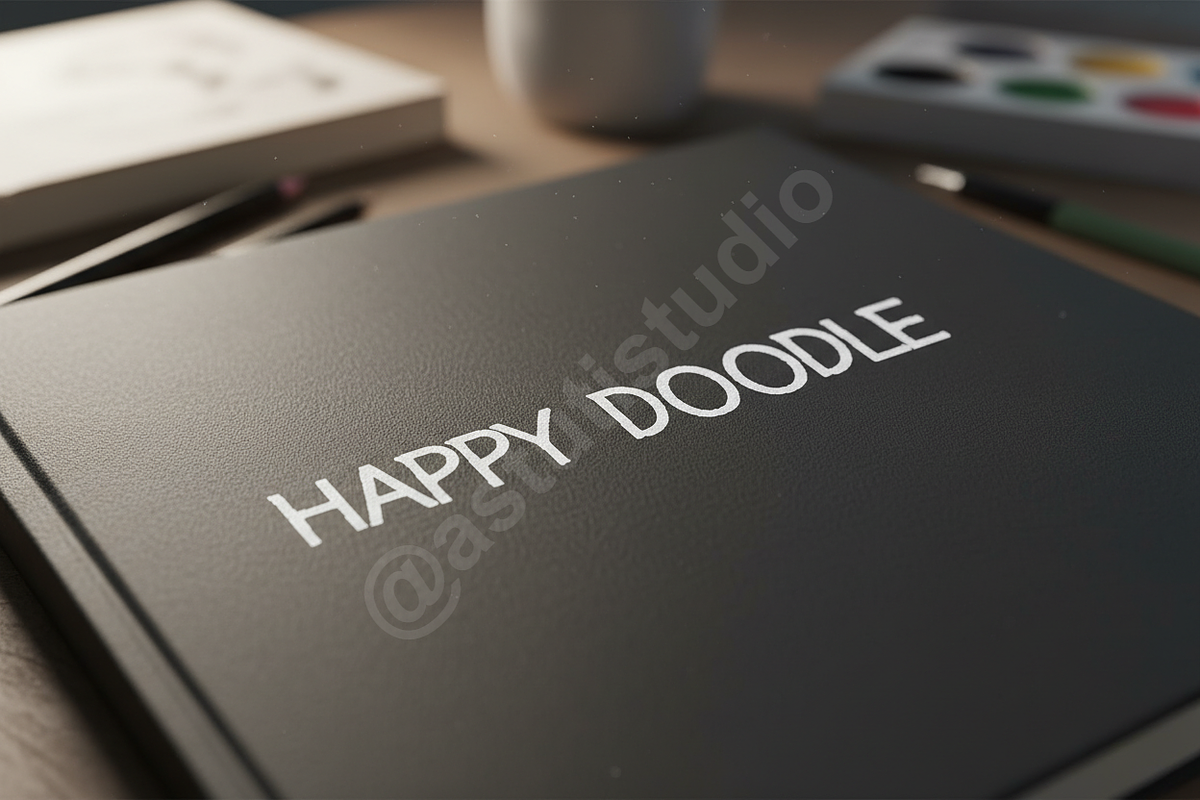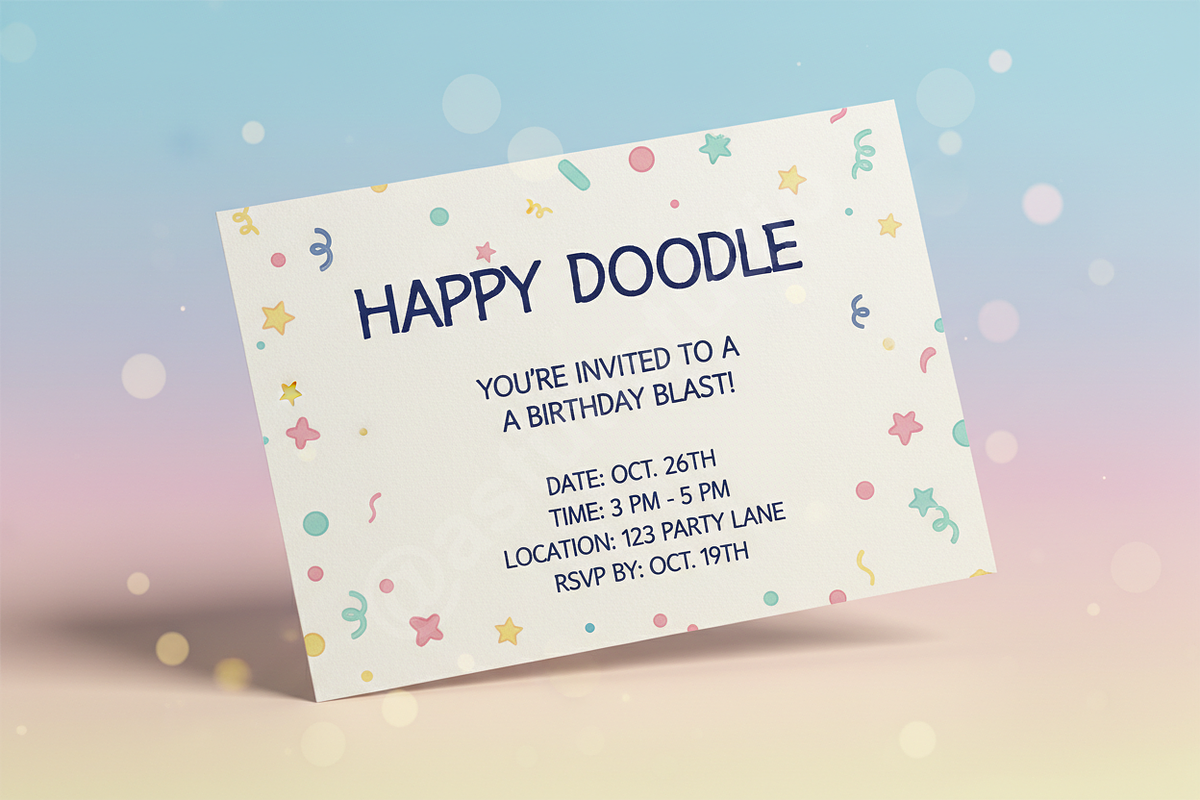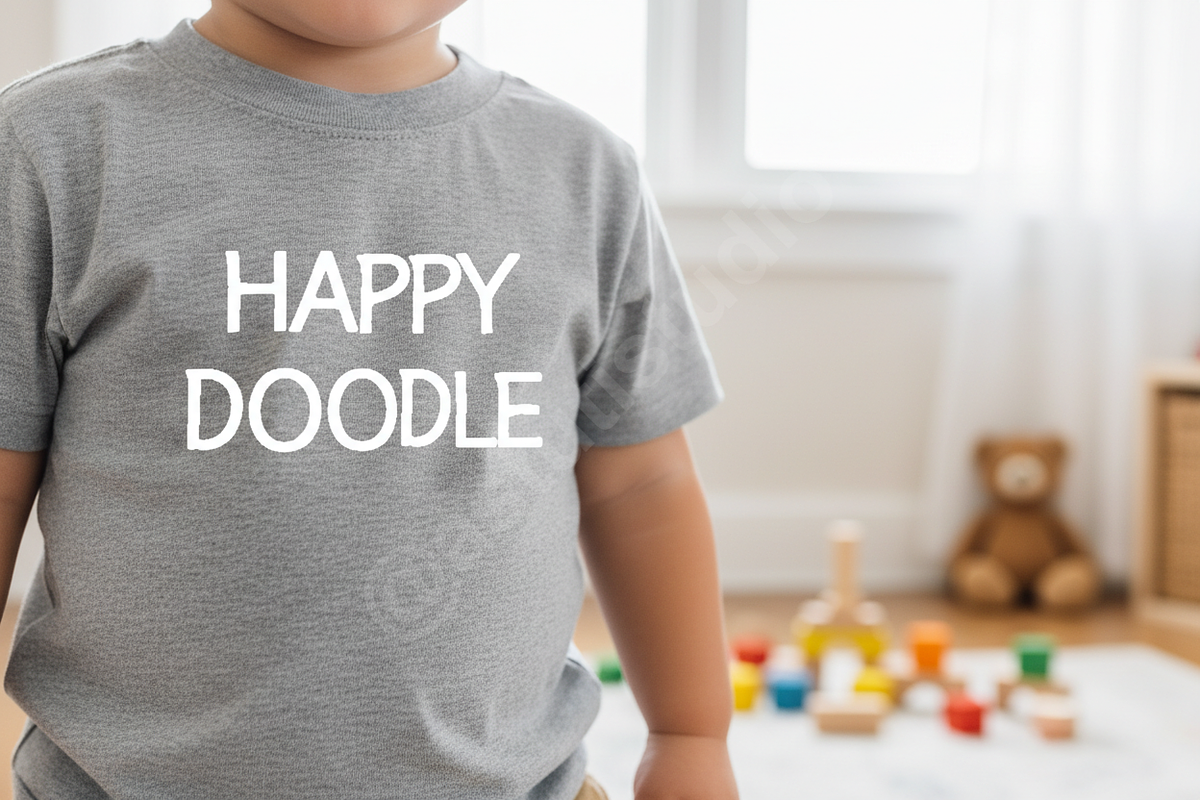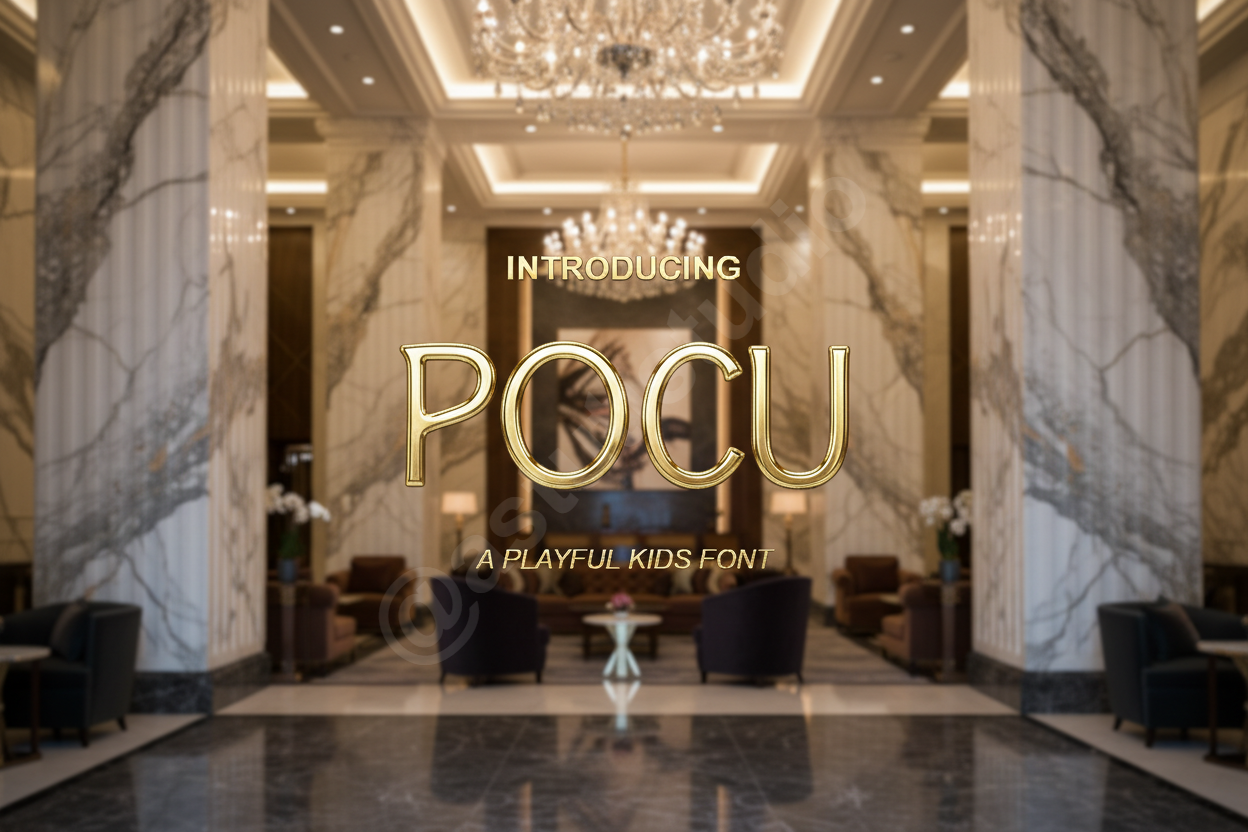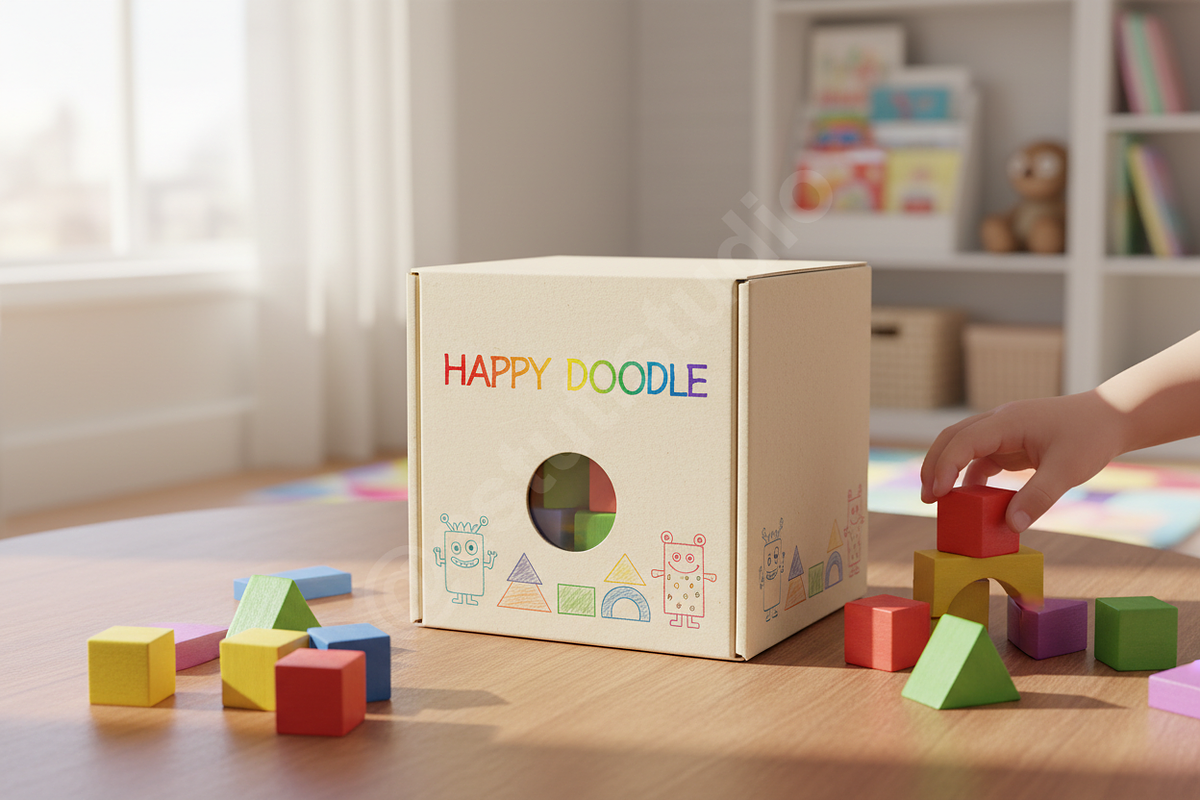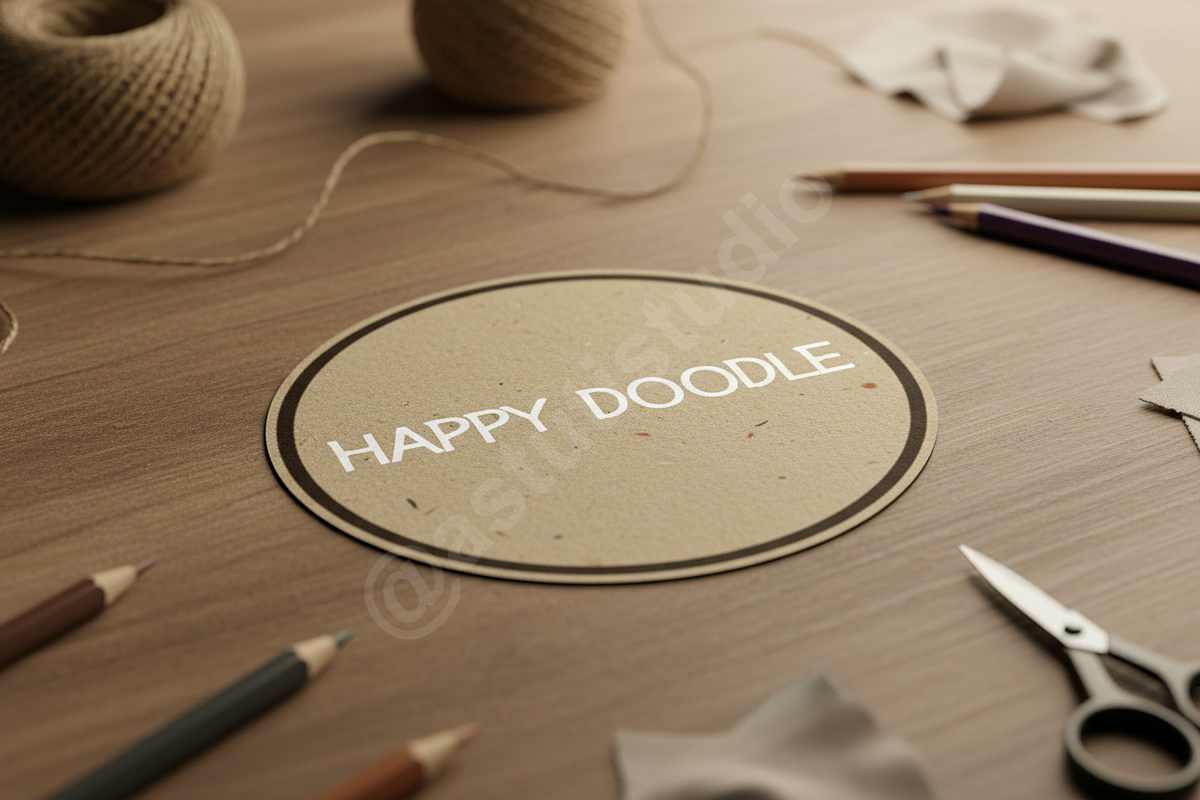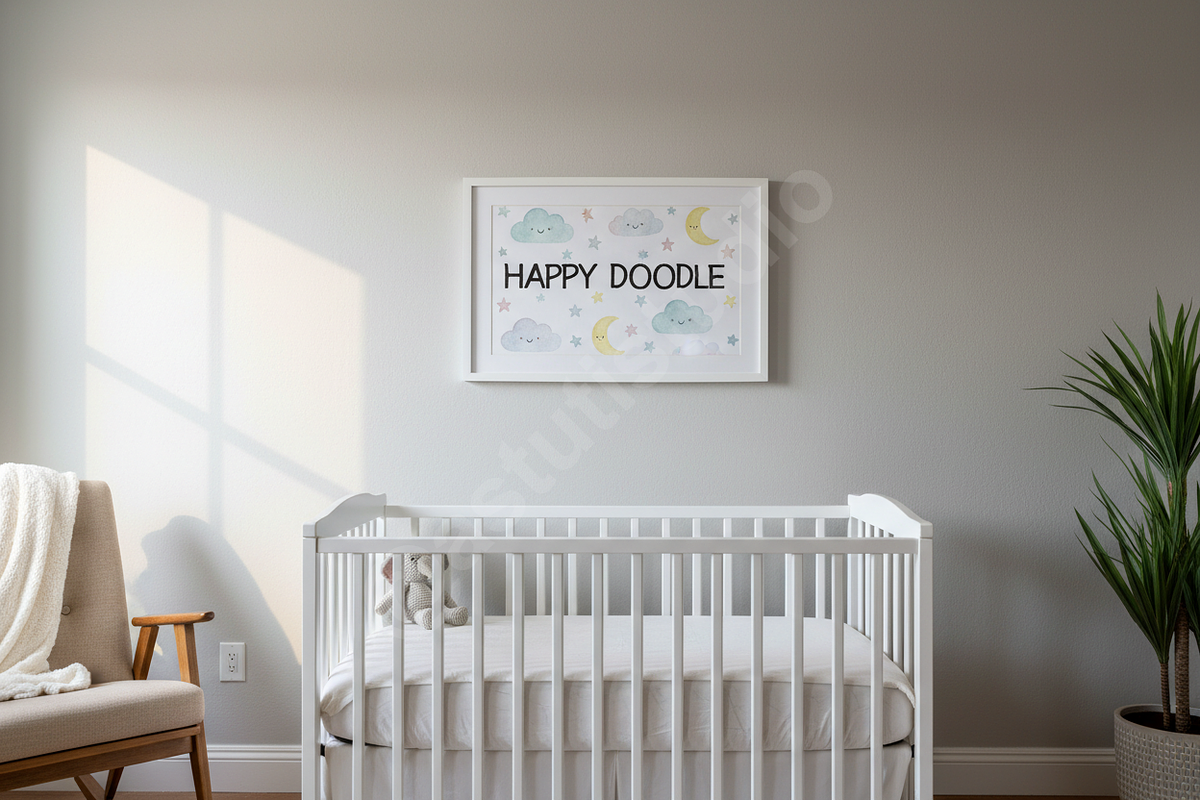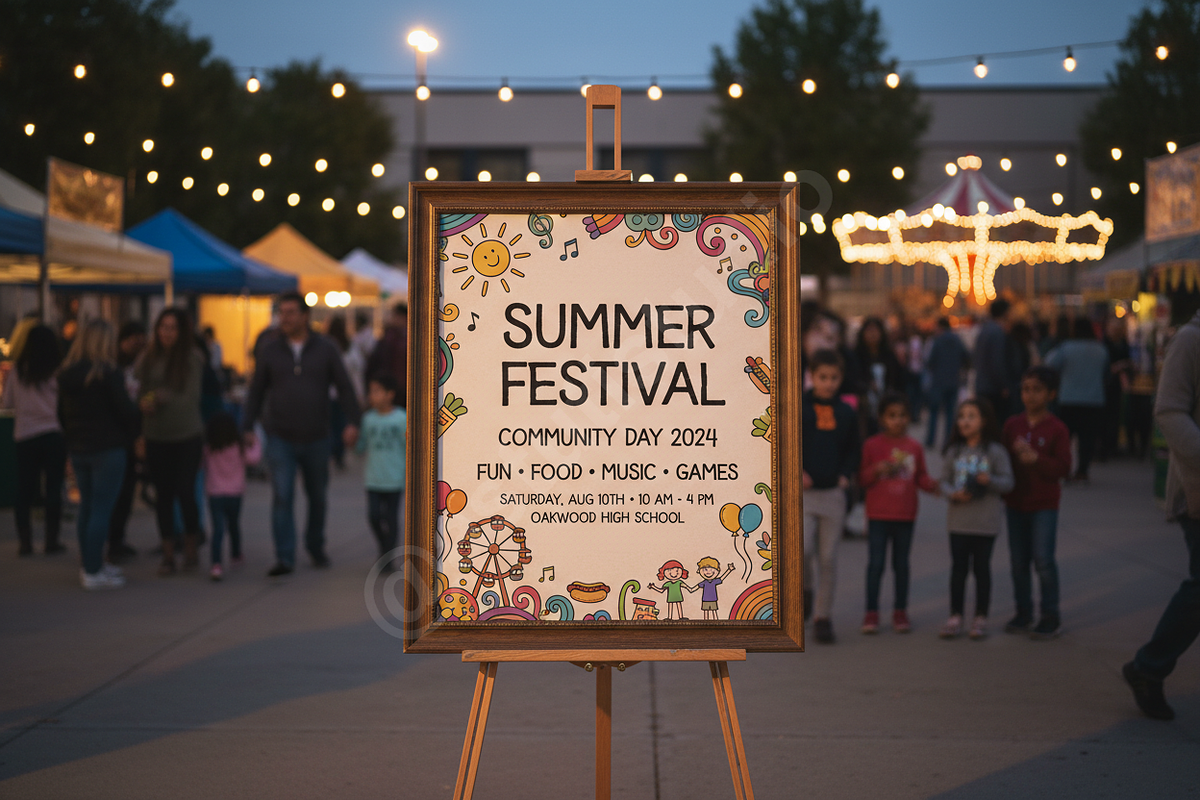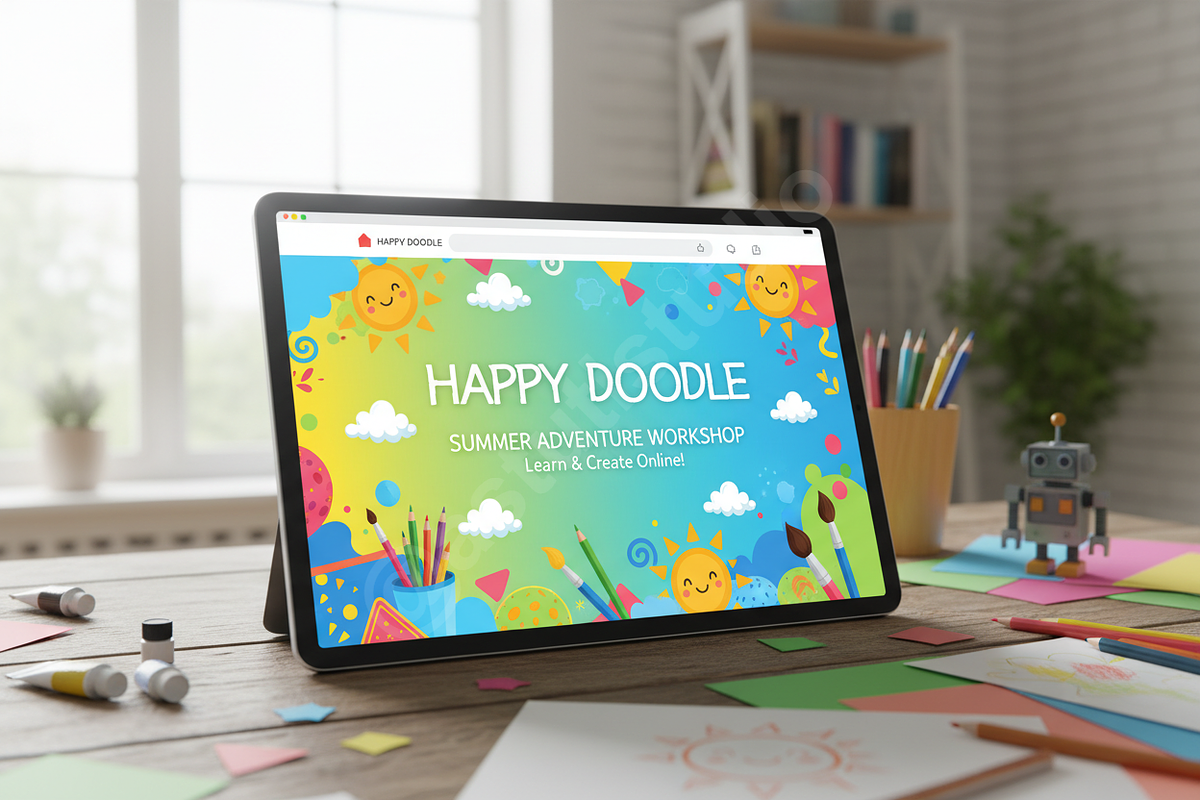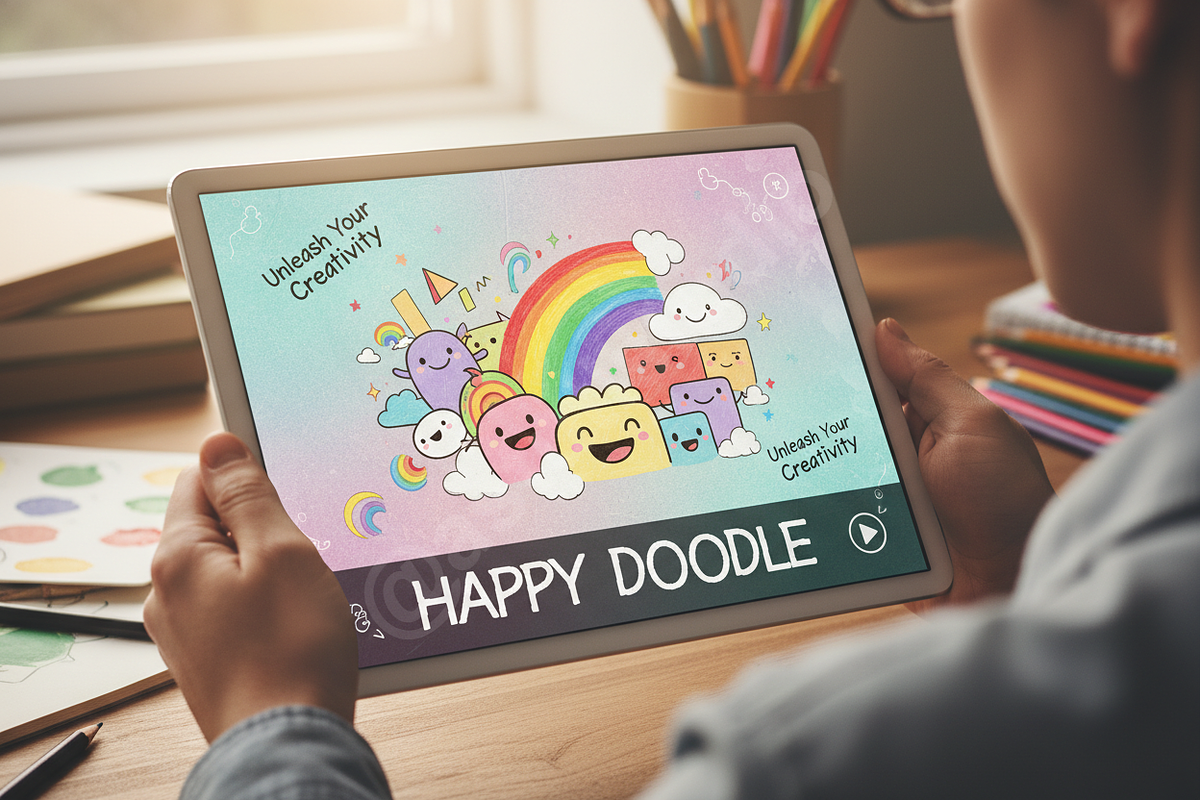
Pocu - Elegant Sans Serif Typeface
INTRODUCTION
Elevate your visual identity with Pocu, a refined sans-serif typeface designed for modern elegance. Characterized by its clean lines and sophisticated proportions, Pocu brings a sense of high-end minimalism to any project. It is the perfect choice for designers seeking a balance between contemporary style and timeless luxury, making it an essential addition to your creative toolkit.
- Minimalist and high-end aesthetic
- Precision-crafted letterforms
- Optimized for legibility and high-impact branding
- Versatile for both web and print applications
IDEAL FOR
- Luxury branding and visual identities
- High-end editorial layouts and magazine spreads
- Sophisticated social media content and digital storytelling
- Minimalist logo design and corporate stationery
- Website headers and fashion lookbooks